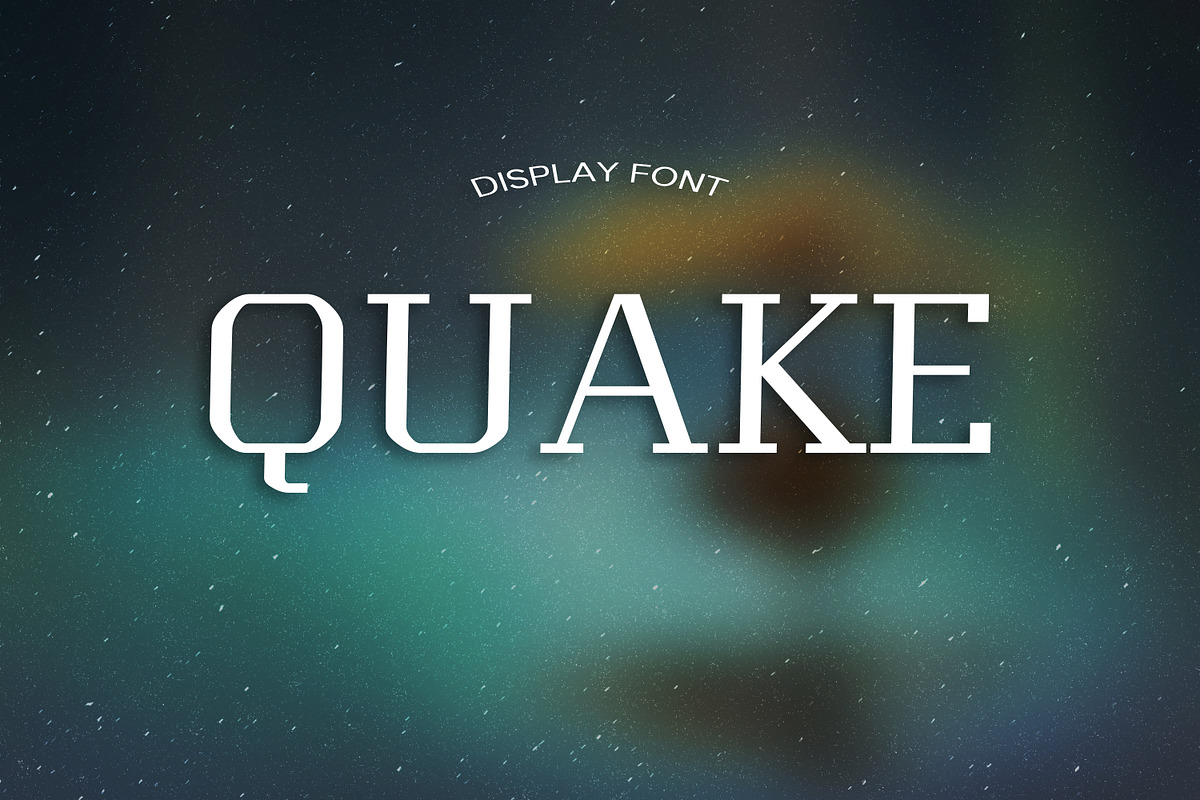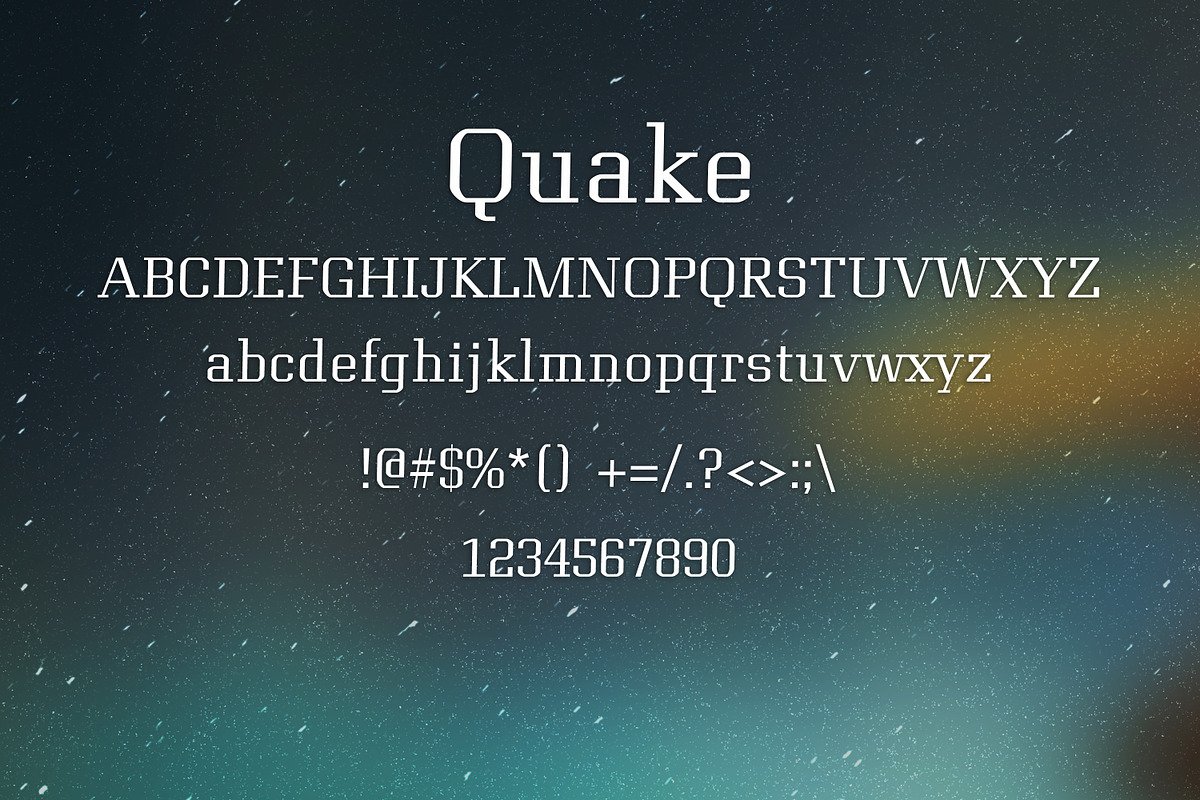
QUAKE font
- Quake regular
Why QUAKE font is worth a look
QUAKE font by DmDesignsStoreArt fits naturally into Branding, posters, packaging, typography.